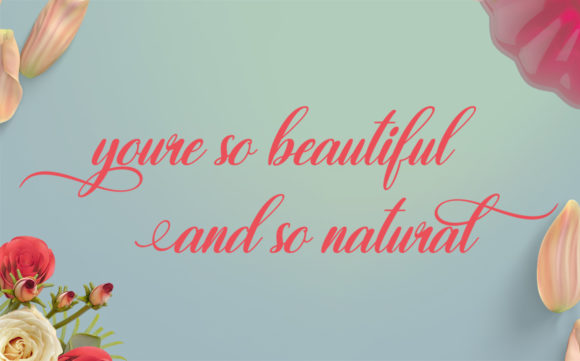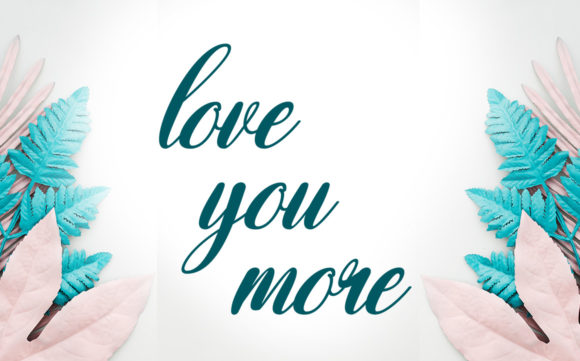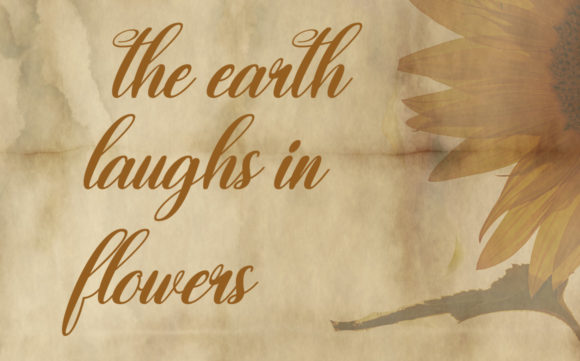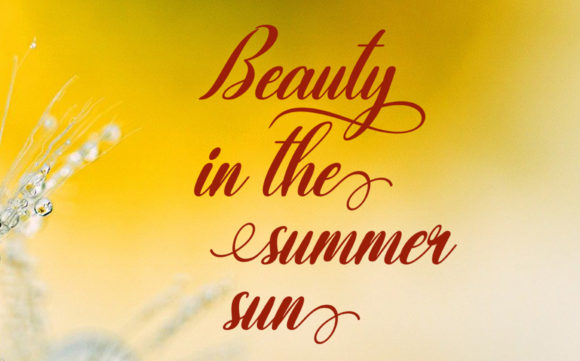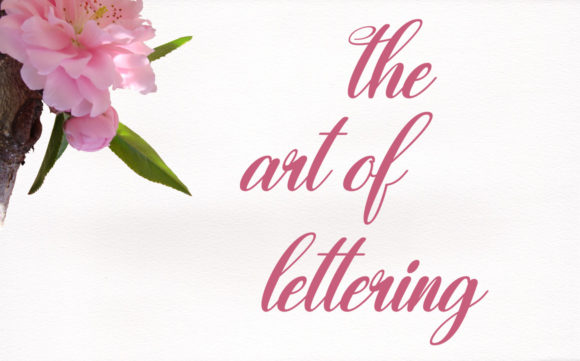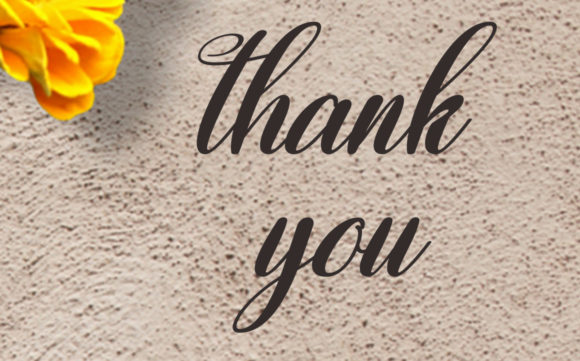
Introduction to Mangdives Font
As I sat at my desk, staring at a blank piece of paper, I knew exactly what I needed to bring my creative project to life – a touch of elegance and sophistication. And that’s where the Mangdives Font comes in, a stunning handwritten font that adds a personal and delicate touch to any design.
Whether you’re designing wedding invitations, thank you cards, or business cards, the Mangdives Font is the perfect design resource to elevate your work. With its PUA encoding, you can access all the glyphs and swashes with ease, making it a high-quality addition to your design toolkit.
As a designer, you know the value of having the right font at your fingertips. The Mangdives Font is a free download that’s sure to become a go-to choice for your next creative project. And with its transparent background, you can seamlessly integrate it into any design, from logos to quotes and greeting cards.
Key Features of Mangdives Font
- High-quality font design suitable for various creative projects, including logos, branding, and digital art.
- Transparent background, allowing for seamless integration with other design elements.
- High-resolution font files, suitable for printing and digital use at 300 DPI.
- Unique, hand-crafted design that sets it apart from other free fonts, offering a distinctive look for creative projects.
- Perfect for designers seeking a high-quality, free design resource for their next project.
Honest Review: Mangdives Font
As a designer, I’m always on the lookout for high-quality design resources to elevate my creative projects. Recently, I stumbled upon the Mangdives Font, and I must say, it’s been a great addition to my toolkit.
Here’s what works well: ✨ The font is incredibly versatile and can be used for a wide range of design projects, from digital interfaces to print materials. The transparent background option is a bonus, allowing me to easily incorporate it into complex compositions. The font is also highly customizable, with a range of styles and sizes to choose from.
- High quality: The font is expertly crafted, with a professional finish that’s perfect for commercial projects.
While the Mangdives Font is an excellent design resource, there are a few limitations to be aware of: ⚠️ The font may not be compatible with all operating systems, and the transparent background option can be tricky to work with in certain software.
Overall, I’m impressed with the Mangdives Font and would highly recommend it to designers looking for a high-quality, versatile font for their creative projects.
The Mangdives Font is a versatile and creative design resource ideal for various high-quality projects. With its unique characteristics, it can add a touch of elegance to your work.
Tips for Getting the Most Out of Mangdives Font
To get the most out of the Mangdives Font, use it with a transparent background and combine it with other design elements for a unique look.
The Mangdives Font is ideal for various creative projects, including:
- Brochures and flyers.
- Business cards and letterheads.
- Infographics and presentations.
With its high-quality design and versatility, the Mangdives Font is a valuable addition to any design resource library.
Q: Does Mangdives Font support transparent backgrounds?
Yes, Mangdives Font is designed to work seamlessly with transparent backgrounds. This makes it an ideal choice for designers who want to create high-quality graphics with a transparent or semi-transparent effect.